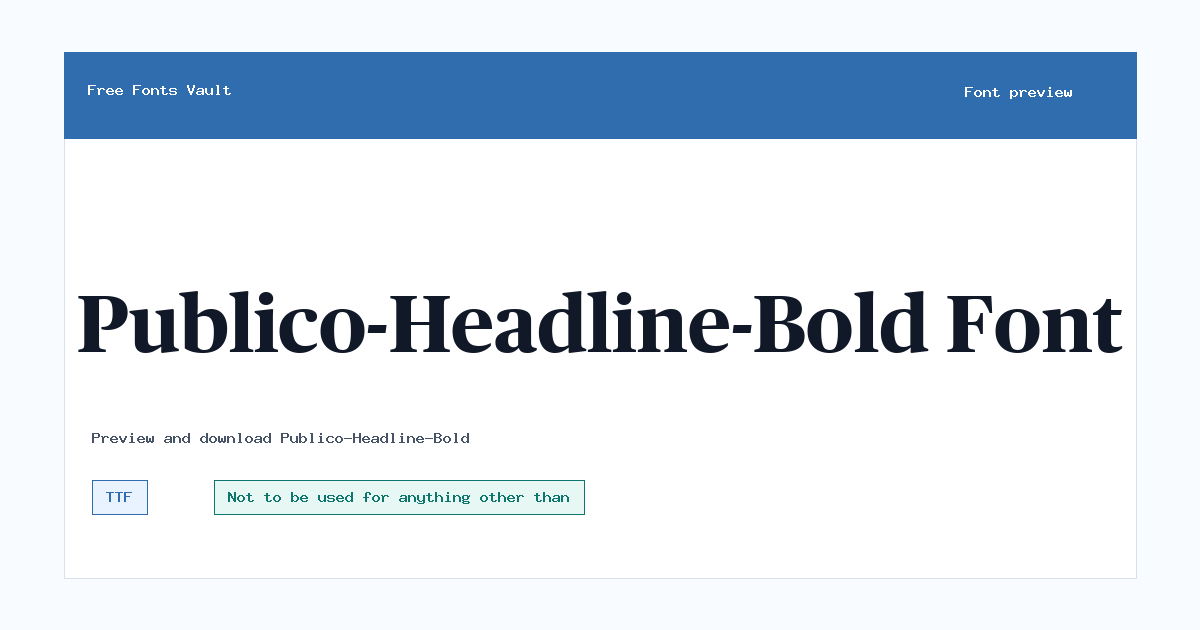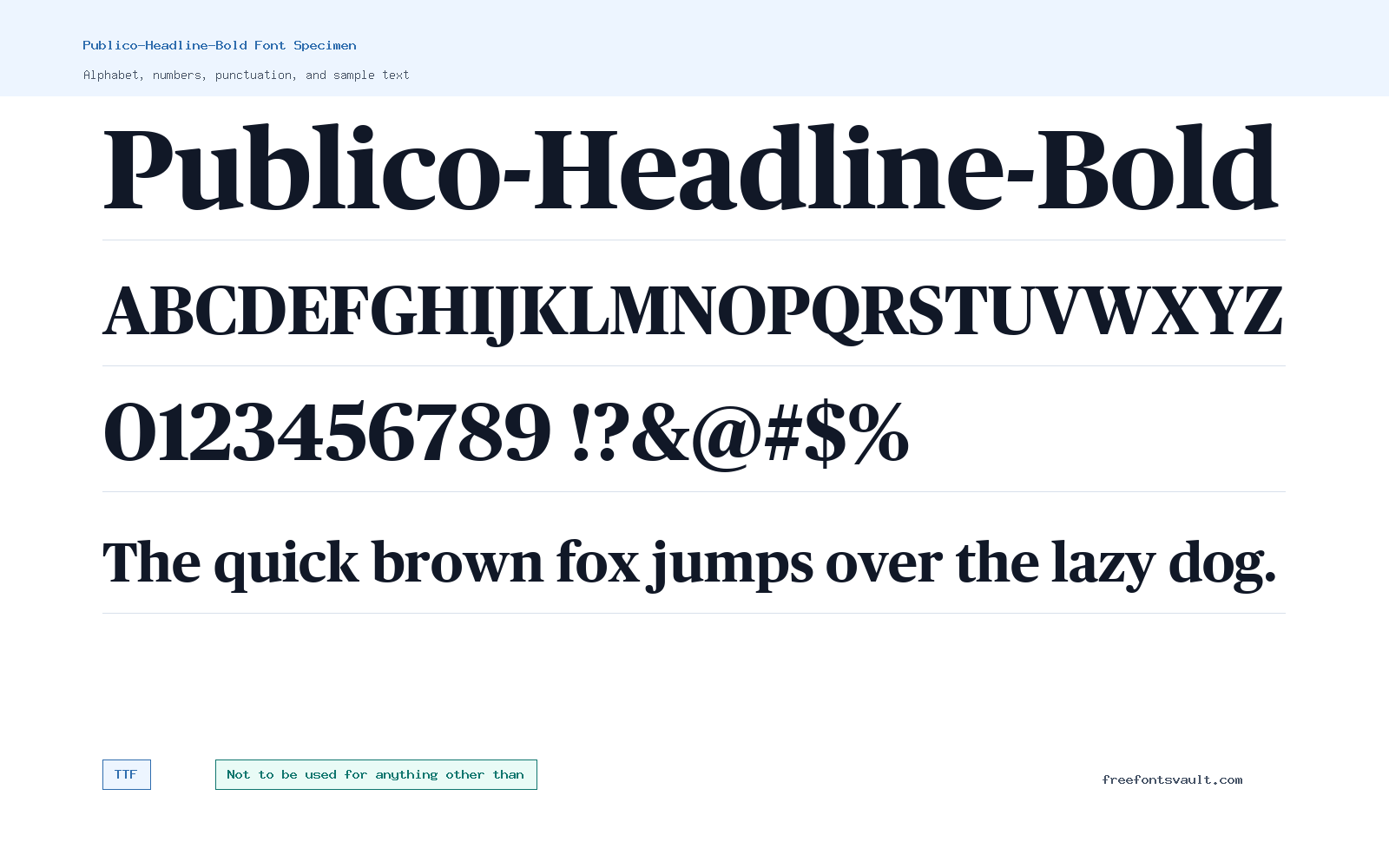
Publico-Headline-Bold
- Designer Paul Barnes and Christian Schwartz
- Foundry Commercial Type
Publico Headline Bold is a strong headline style from the Publico collection, designed for display text that needs clear weight and an editorial tone.
About Publico Headline Bold
Publico began as part of newspaper-related type work and was later developed into a larger collection by Commercial Type. Publico Headline is the headline branch of that collection, and the Bold style uses a 700 weight for titles, section headers, pull quotes, and other short text settings where impact matters.
Publico Headline Bold is at its best when the headline needs authority without feeling mechanical. It can suit magazine covers, article openers, book-adjacent graphics, newsletter headers, and editorial hero sections where the type needs weight and a serious tone.
- Bold 700 weight for prominent headline settings
- Part of Commercial Type’s Publico Headline family
- Useful for short editorial-style text rather than long body copy
- Editorial headline tone with enough weight for strong page hierarchy
- Best used in short lines where the bold serif details remain clear
- Article headlines and section titles
- Magazine-style layouts and editorial graphics
- Pull quotes, hero text, and short display lines
- Brand mockups where a strong headline voice is needed
- News-style headlines, magazine mockups, feature titles, and formal editorial graphics
Publico is credited to Paul Barnes and Christian Schwartz, with Commercial Type listed as the foundry.
What weight is Publico Headline Bold?
It is listed with a 700 font weight, which is commonly used for bold text.
What is Publico Headline Bold best used for?
It is best suited to short, prominent text such as headlines, titles, pull quotes, and editorial-style display settings.
Who designed Publico?
Publico is credited to Paul Barnes and Christian Schwartz, and Commercial Type is listed as the foundry.